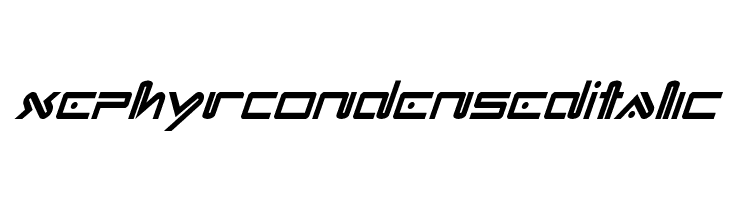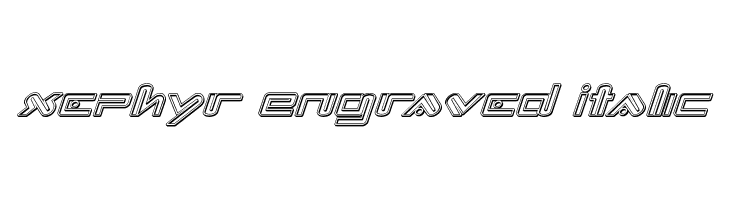
A futuristic, condensed italic font with sleek, angular characters.
A futuristic, engraved font with a three-dimensional, geometric design.
A futuristic, engraved italic font with geometric outlines.
A futuristic, geometric font with bold, angular letterforms.
A futuristic, geometric font with bold, angular letterforms and expanded width.
A futuristic, italicized font with expanded, geometric letterforms.
A futuristic, expanded italic font with bold, angular characters.
A futuristic, expanded, shadowed, and italicized font with bold outlines.
A futuristic, digital font with a gradient line pattern and geometric design.
A futuristic, italicized font with a gradient line effect.